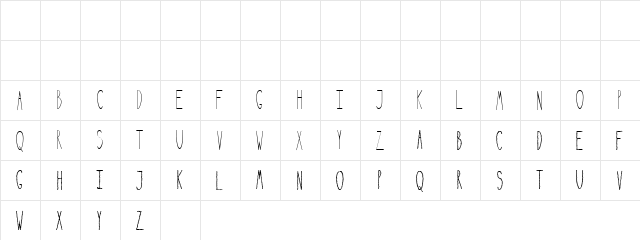
Ducatus Demo
Design Context for Ducatus Typeface
Ducatus offers clean, dependable letterforms without strong stylistic allegiance, making it a practical choice for designers who need flexibility.